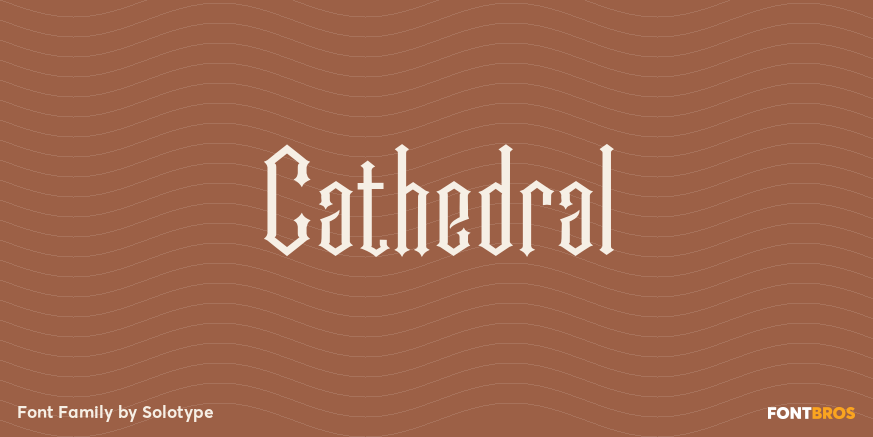
HomeFont BrosHistoricalCathedral Historical Cathedral FacebookXPinterestWhatsApp 1 of 1 About Cathedral This font was designed as an experiment in simplfying the Blackletter. We never showed it in the Solotype catalog, so it didn\’t get much use.  DOWNLOAD NOW People also explored Farhan Font Costa Smeralda Script Font Renaligito Font Special Designer Font ZP Supermind Font Trakya Slab Font Nadine Sheila Font Ramovia Font Blooming Spring Font 467 0 TagsCathedral Font Previous articleSignaturistarNext articleYWFT Manifest LEAVE A REPLY Cancel reply Comment: Please enter your comment! Name:* Please enter your name here Email:* You have entered an incorrect email address! Please enter your email address here Website: Save my name, email, and website in this browser for the next time I comment. Personal Use Free Sathscha Personal Use Free Read more about this font Astagina Signature Personal Use Free Read more about this font Ashay Personal Use Free Read more about this font Densmore Personal Use Free Read more about this font BLOG Free vs Paid Fonts: Why Investing in Premium Fonts Is Worth It Free vs Paid Fonts: Why Premium Fonts Are Worth It in 2025 The debate of free vs paid fonts continues in the design world. While... The 10 Best Handwriting Fonts to Add Personality to Your Designs Exploring Font Trends Elegant Wedding Invitation Fonts – Handwritten & Script Fonts